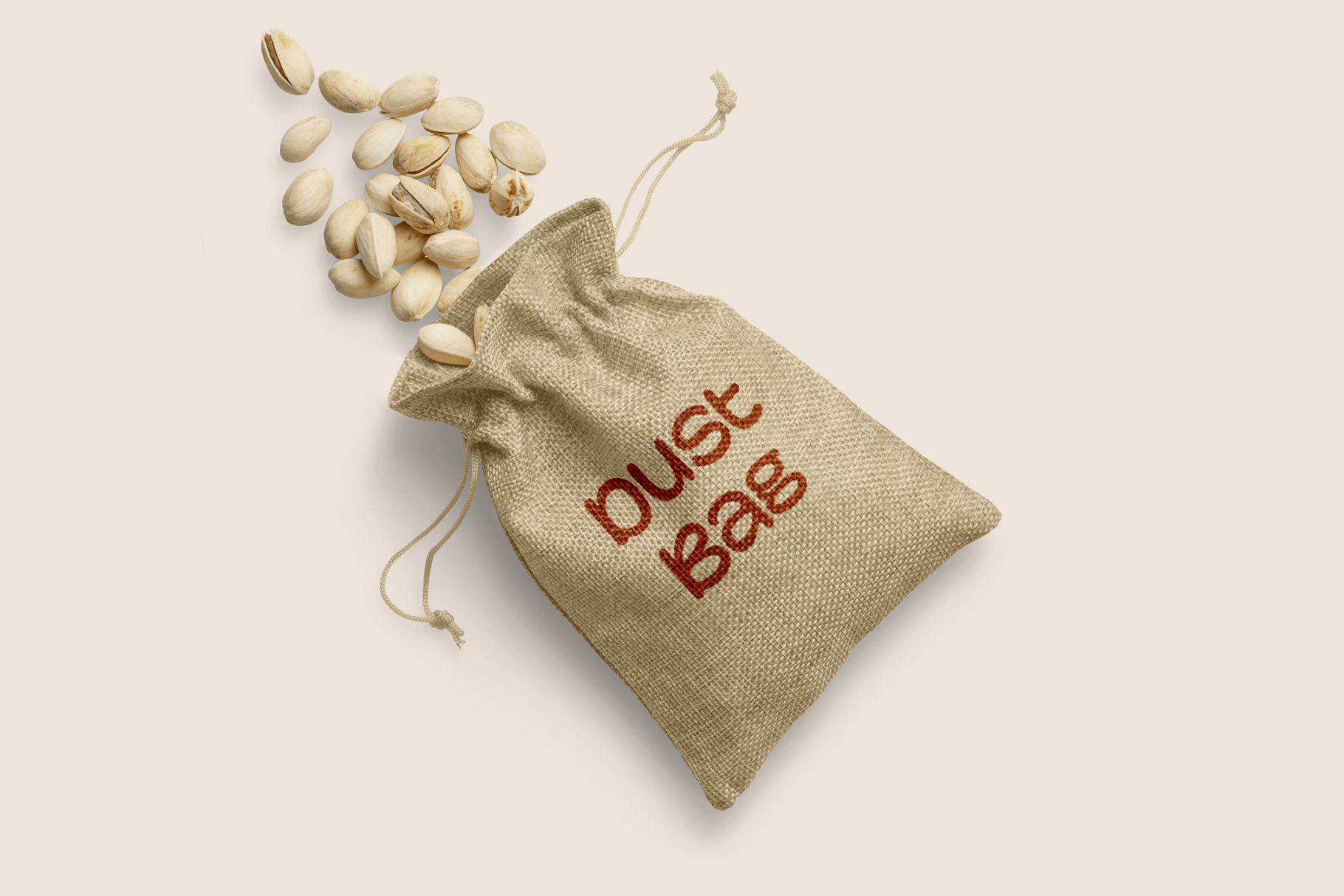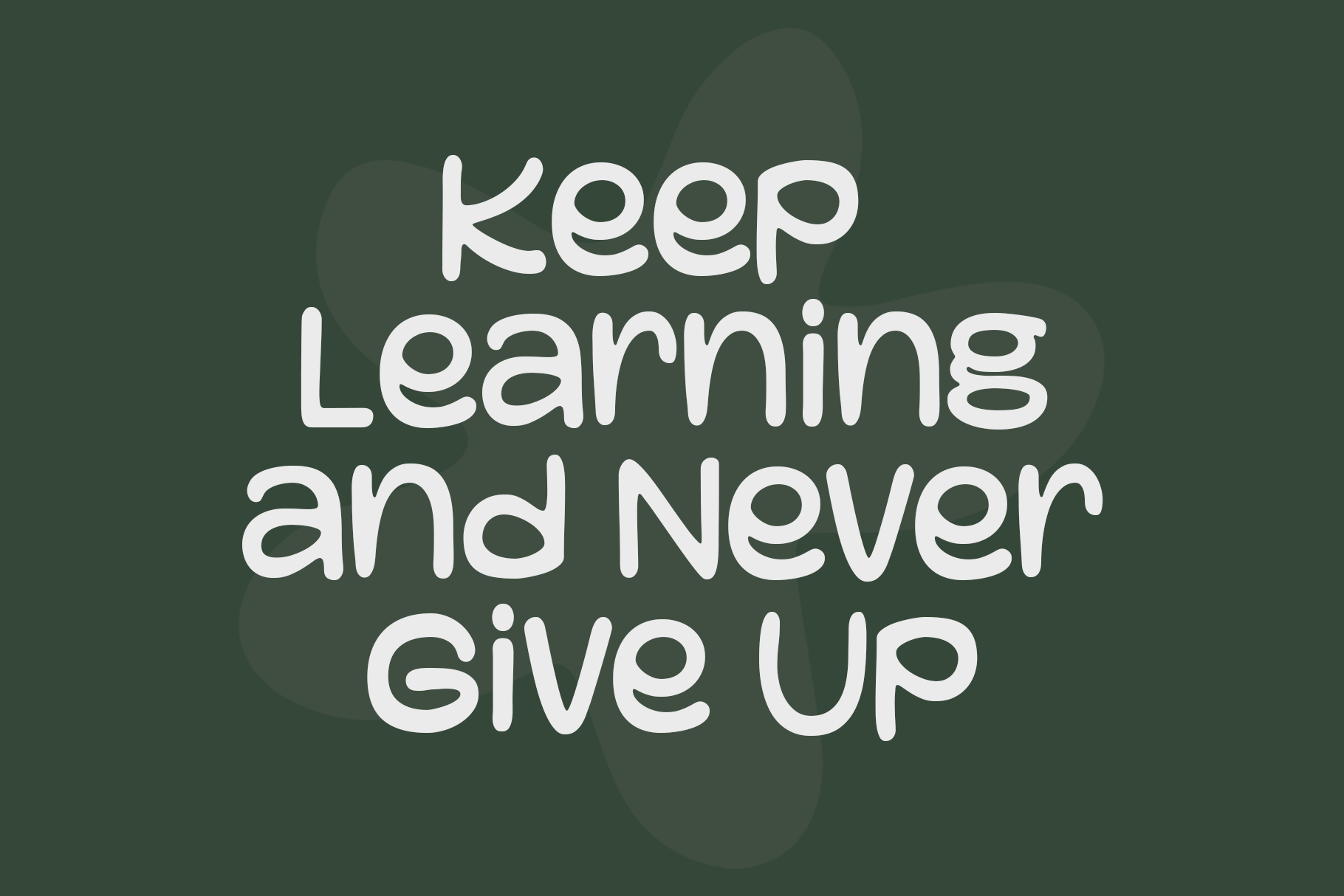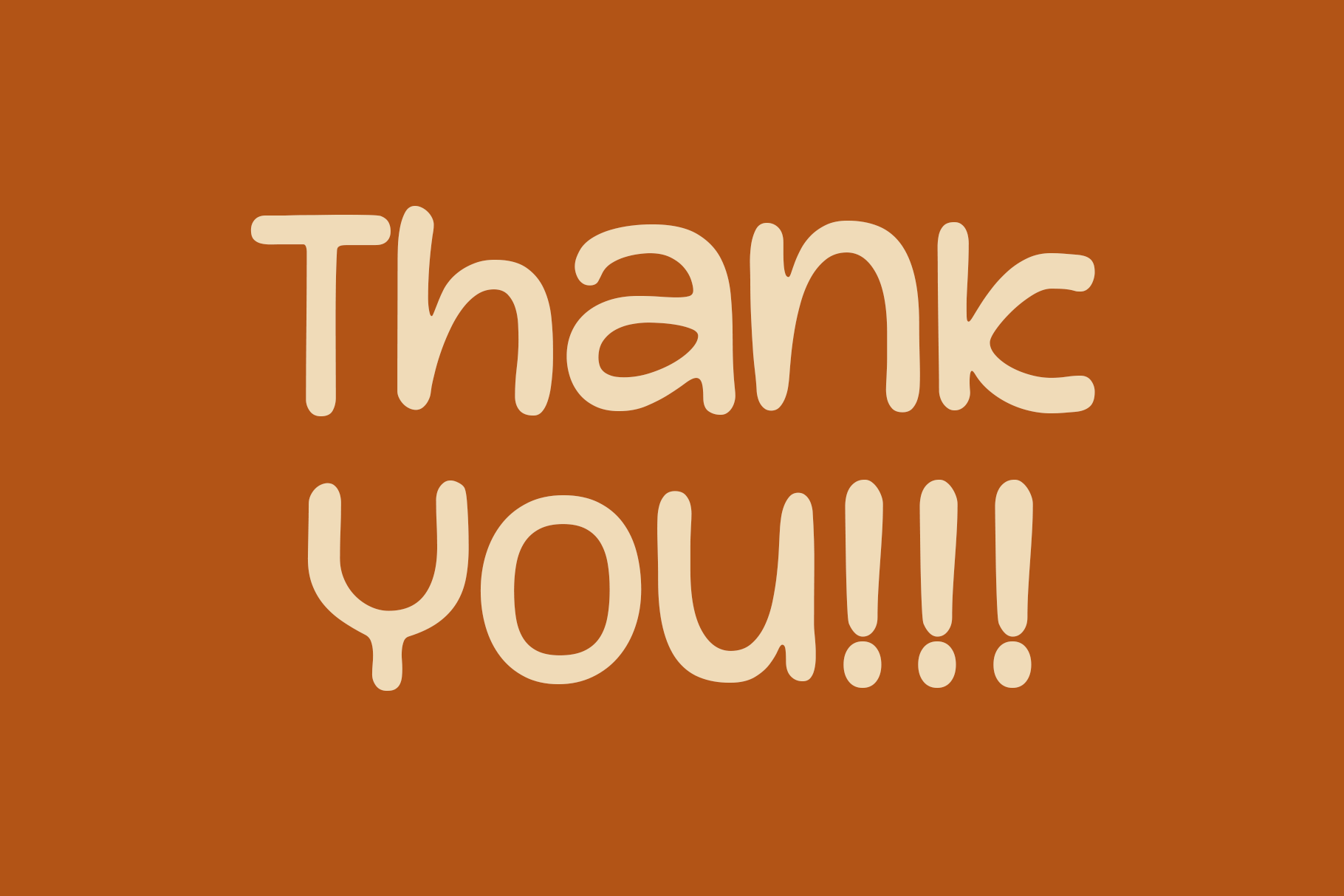
Rusty Hooks Display Font is a fun and whimsical handwritten font. A little bit quirky, this font looks incredibly adept in a wide variety of contexts!